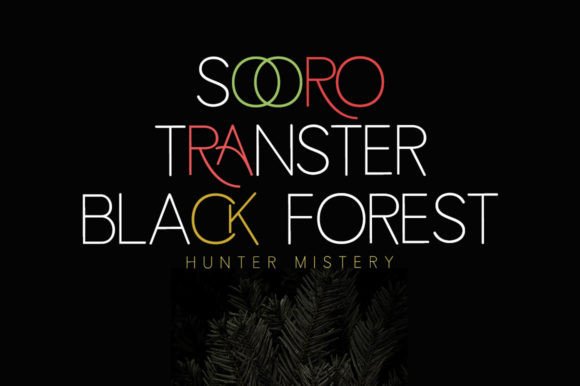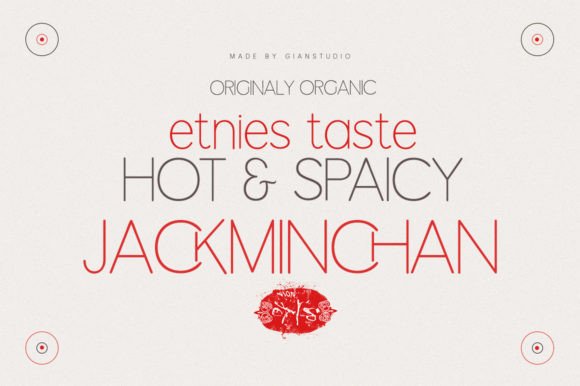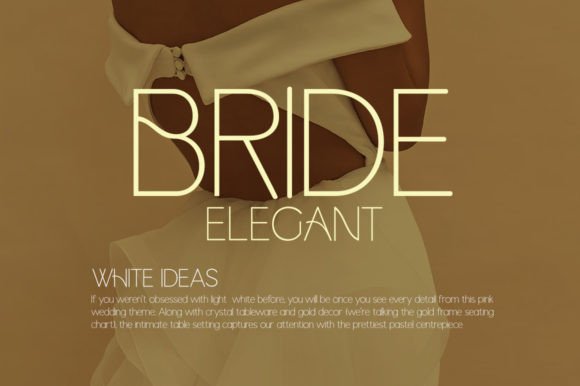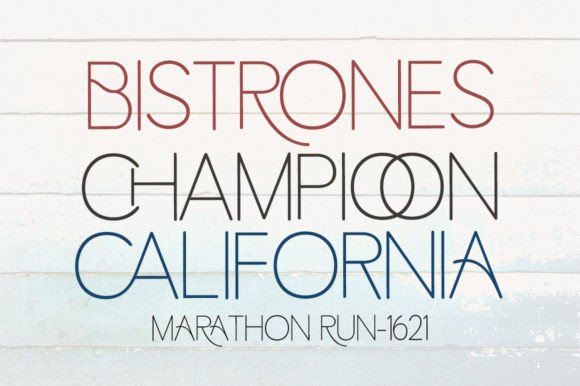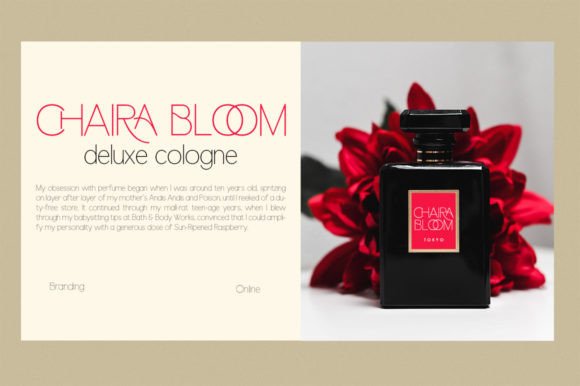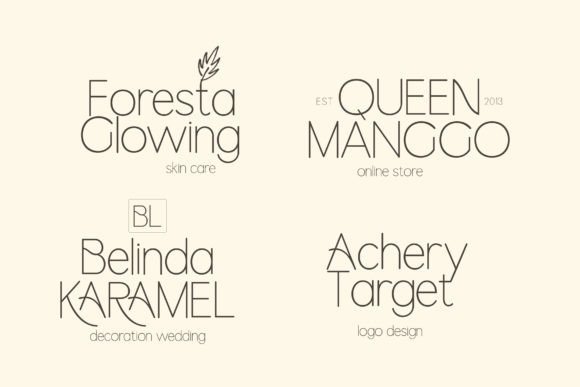
Introduction to Radenes Font
Have you ever found yourself stuck on a design project, struggling to convey the essence of your vision through the perfect font? I know the feeling – it’s like trying to capture a fleeting moment of inspiration, only to have it slip through your fingers. But what if I told you that there’s a way to add a touch of luxury and style to your creative projects, without sacrificing quality or elegance? Enter Radenes Font, a stunning sans-serif font that’s sure to elevate your designs and leave a lasting impression.
As a designer, you know that the right font can make all the difference in bringing your ideas to life. That’s why Radenes Font is a valuable addition to any design resource, offering a high-quality, transparent background that’s perfect for logotypes, branding, monograms, and more.
Whether you’re working on a blog headline, wedding invitation, or simply looking for a unique touch to add to your next project, Radenes Font is a free download that’s sure to become a trusted design companion.
Key Features of Radenes Font
- High-quality design resource for creative projects, perfect for those looking for a unique and elegant font.
- Features a transparent background, allowing for seamless integration into various design elements and backgrounds.
- Designed with a focus on readability and aesthetics, making it suitable for a wide range of applications, from print to digital media.
- Includes a range of characters and glyphs, including Latin and Cyrillic scripts, making it a versatile design resource.
- Unique characteristics include a mix of modern and vintage elements, making it a great choice for designers looking to add a touch of sophistication to their creative project.
Honest Review: Radenes Font
As a designer, I’m always on the lookout for new design resources to elevate my creative projects. Recently, I stumbled upon the Radenes Font, and I’m excited to share my thoughts on this unique font.
What works well: ✨ The Radenes Font has a distinctive, modern aesthetic that’s perfect for minimalist designs. Its transparent background makes it easy to overlay on images, and the high-quality vector files ensure crisp lines and clean typography. I appreciate the versatility of this font, which can be used for both digital and print projects.
What doesn’t work well: ⚠️ While the Radenes Font is a great addition to any design arsenal, it’s not suitable for projects that require a bold, dramatic font. Additionally, the font’s complexity may make it challenging for beginners to use effectively.
- High-quality vector files
- Transparent background for easy overlay
- Perfect for minimalist designs
- May not be suitable for bold or dramatic projects
Overall, I’m impressed with the Radenes Font’s unique design and versatility. While it may not be perfect for every project, it’s a valuable addition to any designer’s toolkit. If you’re looking for a modern, high-quality font for your creative project, the Radenes Font is definitely worth considering.
Radenes Font
Radenes Font is a high-quality design resource that offers a unique and creative touch to any project. With a transparent background, this font is perfect for designers looking for a versatile and customizable option.
To get the most out of Radenes Font, try experimenting with different font sizes, colors, and styles. You can also combine it with other design elements to create a unique and eye-catching visual effect.
Radenes Font is perfect for a variety of design projects, including logos, business cards, brochures, and social media graphics. Its versatility and high-quality design make it a great addition to any creative project.